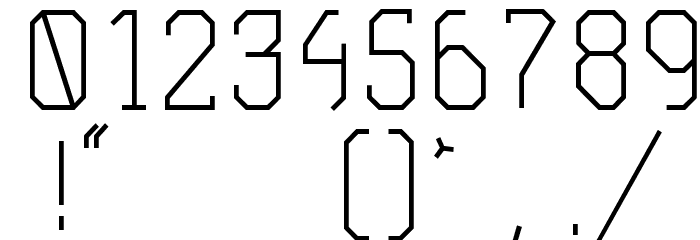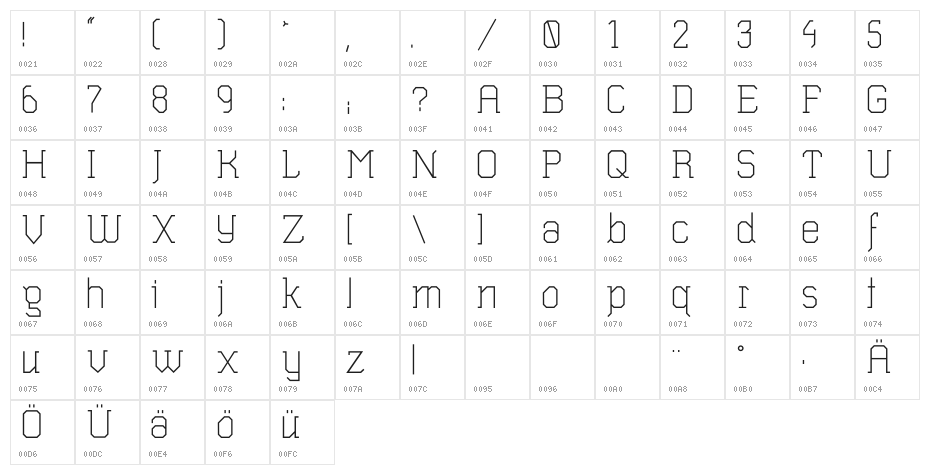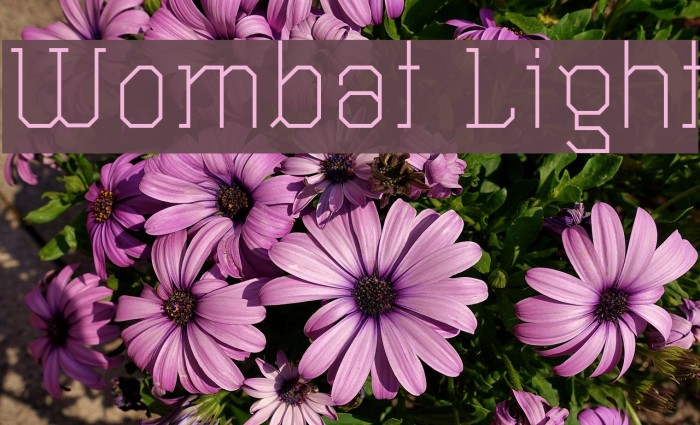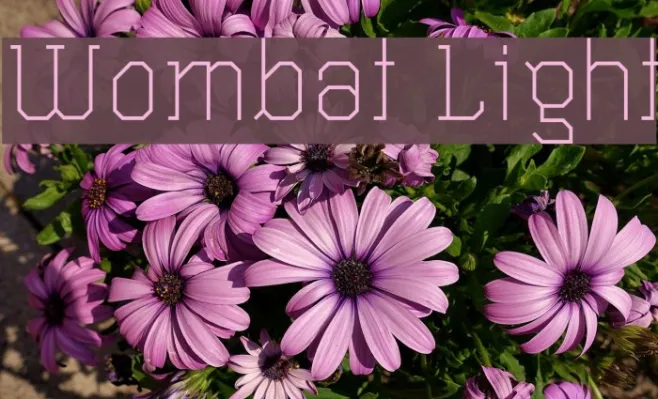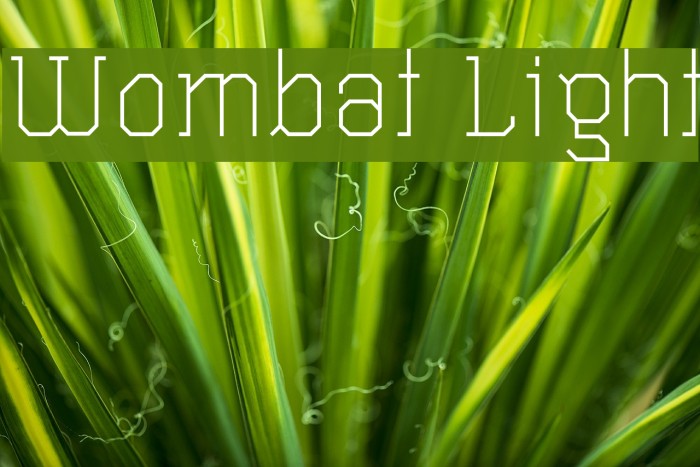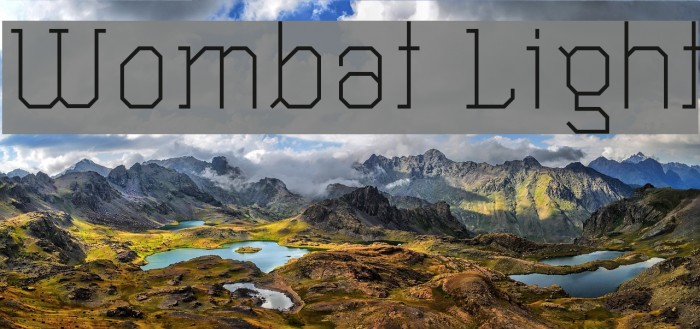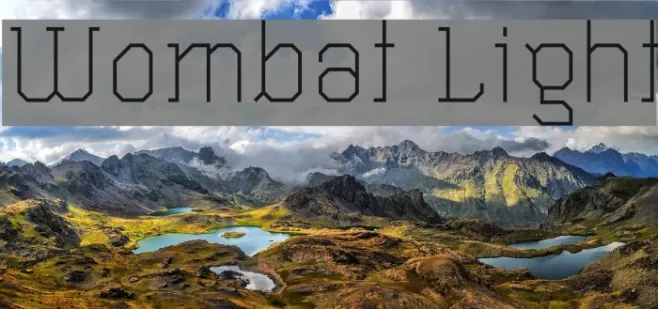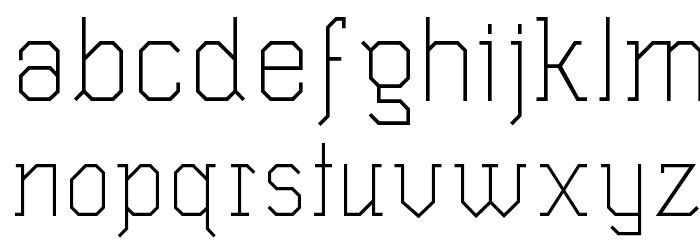
Wombat Light Font
Wombat Light Description
This font features a unique geometric design with a modern twist. Each character is constructed with straight lines and sharp angles, giving it a distinct, almost mechanical appearance. The uppercase and lowercase letters maintain a consistent style, with the lowercase letters being slightly more compact. The numerals and special characters follow the same geometric pattern, ensuring uniformity across the font. The overall look is clean and precise, making it suitable for projects that require a contemporary and technical feel.
| Use Case | Logos, Headlines, Digital interfaces |
| Proposed Projects | Ideal for tech branding, modern posters, digital interfaces, and architectural designs. |